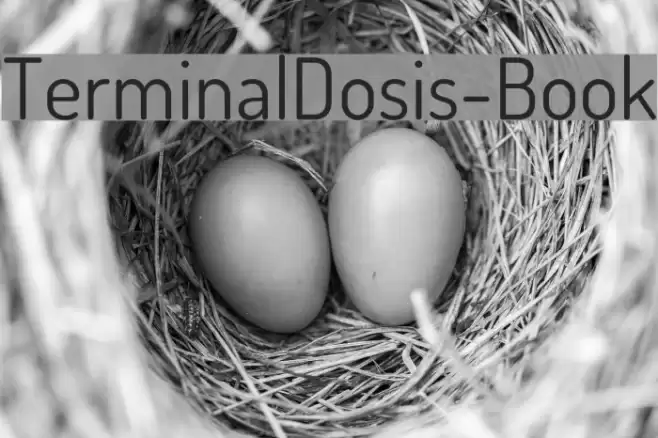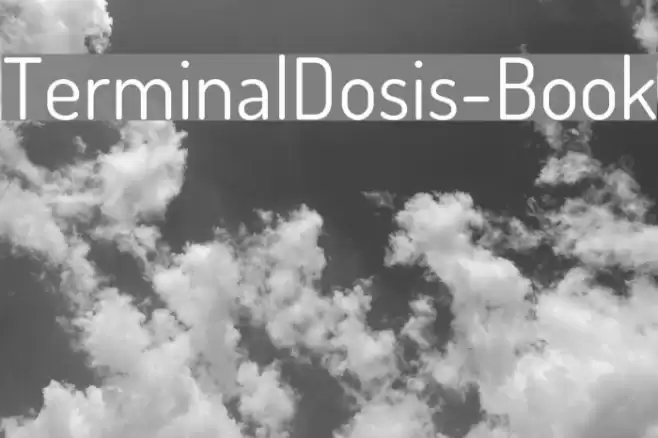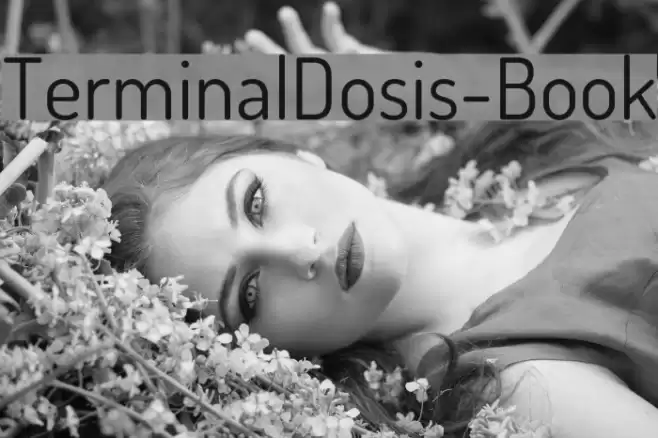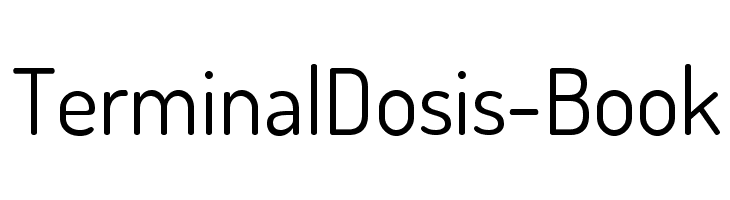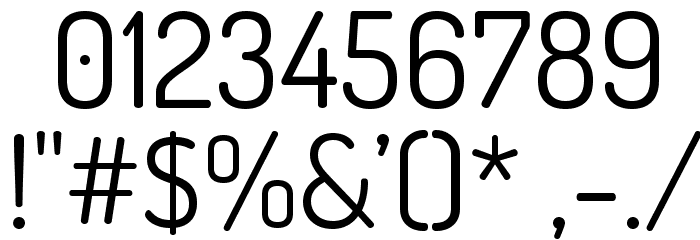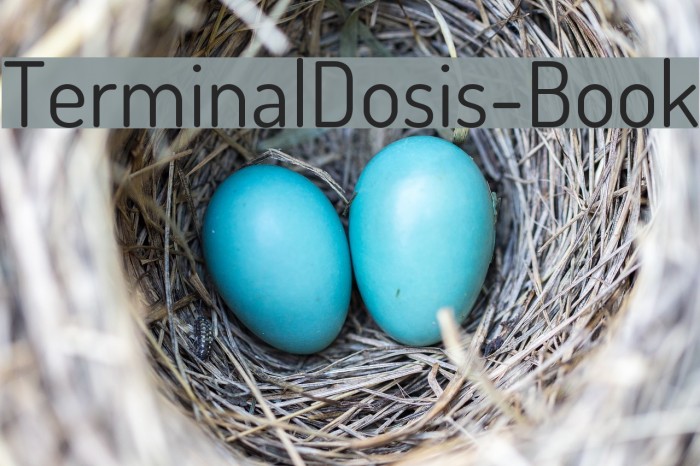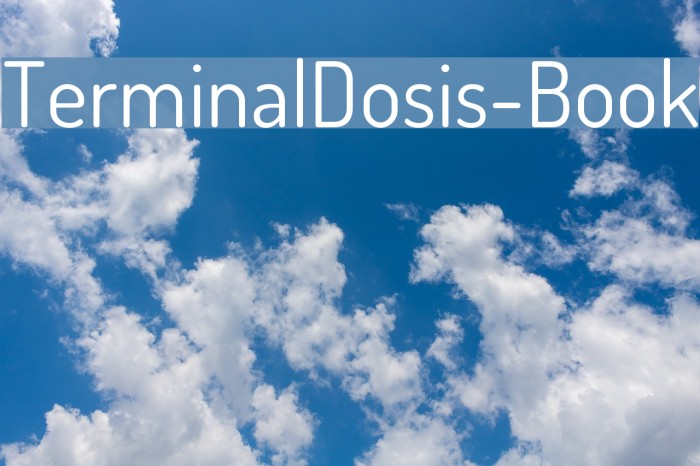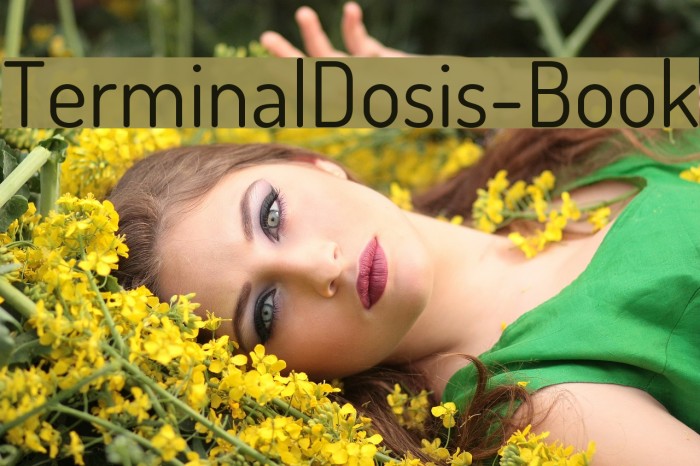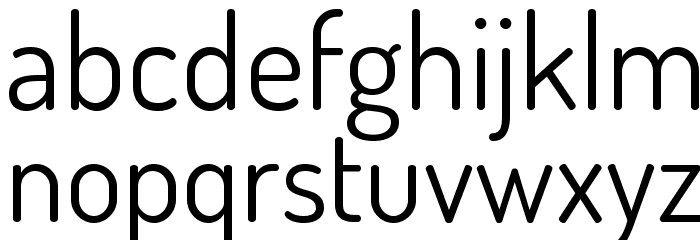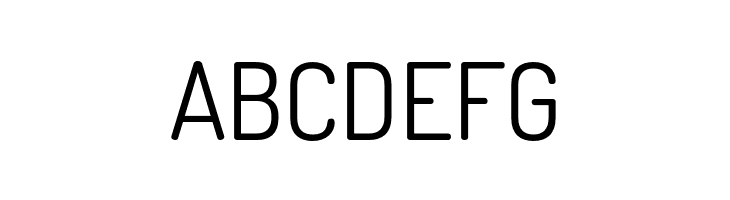
TerminalDosis-Book Font
TerminalDosis-Book Description
This font features a clean and modern sans-serif design with rounded edges, giving it a friendly and approachable appearance. The characters are evenly spaced, contributing to excellent readability. The uppercase letters are slightly taller than the lowercase, maintaining a balanced and uniform look. The numerals are clear and distinct, making them suitable for both digital and print applications. Special characters are well-defined, ensuring versatility across various contexts. The overall style is minimalistic, making it ideal for contemporary design projects.
A modern, rounded sans-serif font with excellent readability and a friendly appearance from Uncategorized fonts.
- Proposed Projects: Ideal for web design, user interfaces, branding, and advertising materials where a modern and approachable look is desired.